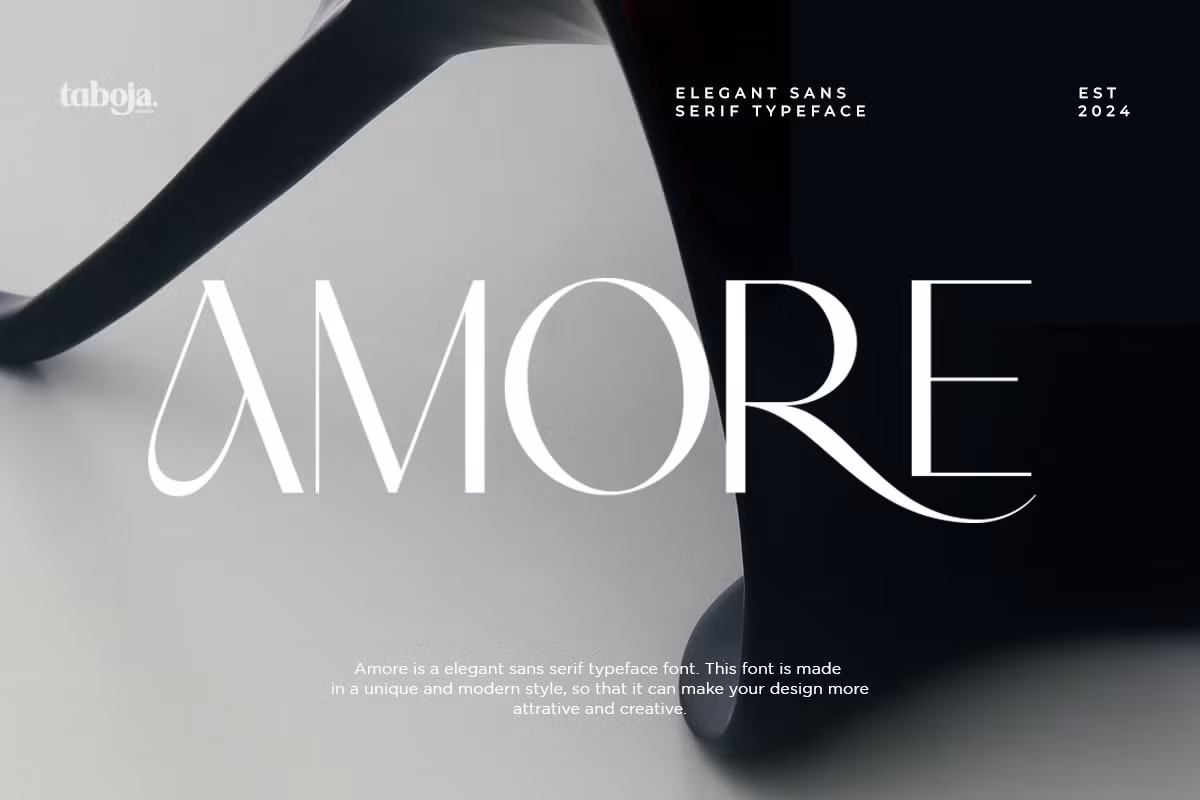
Please note that you must purchase this font for commercial use. You can download Amore – Sans Serif Display Font for free, strictly for personal testing purposes only. Amore is a modern and clean sans-serif display font designed for bold, attention-grabbing designs. With its sleek lines, geometric shapes, and sharp edges, Amore Font Free Download is perfect for creating impactful logos, headlines, posters, branding, and social media graphics.
This font stands out with its modern aesthetic, making it ideal for projects that need to make a strong statement while maintaining clarity and style. It includes uppercase and lowercase letters, numerals, punctuation, and multilingual support, ensuring versatility across various design needs.
Whether you're working on a contemporary brand identity, designing a stylish website, or creating a standout advertisement, Amore brings a sleek, modern edge to your typography.